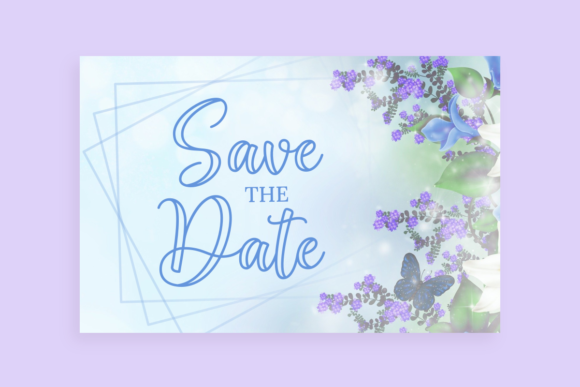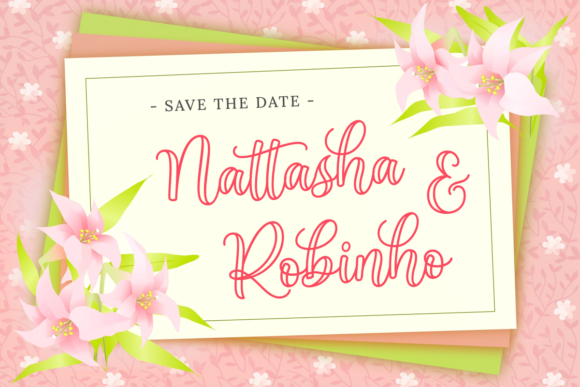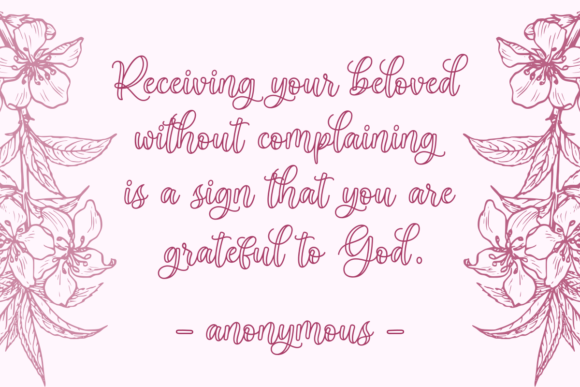
Introduction to Mellayu Font
As a designer, have you ever found yourself staring at a blank page, searching for the perfect font to bring your creative project to life? The moment when everything clicks, and your design begins to take shape, is truly magical. For many, this moment comes with the discovery of a new, high-quality design resource that sets their project apart.
One such treasure is the Mellayu Font, a stunning handwritten font that effortlessly blends classic calligraphic influences with a modern, contemporary feel. With its elegant curves and precise lettering, the Mellayu Font is a true gem for designers seeking to elevate their work. Whether you’re working on a logo, brochure, or website, this versatile font is sure to bring a touch of sophistication and creativity to your design.
Key Features of Mellayu Font
- High-quality design resource ideal for creative projects requiring a unique touch.
- Includes a comprehensive set of characters, including uppercase and lowercase letters, numbers, and punctuation marks.
- Designed with a modern aesthetic, Mellayu Font is perfect for branding, typography-based art, and digital designs.
Honest Review: Mellayu Font
I recently had the chance to work with the Mellayu Font, a free design resource that I was eager to test in a creative project. The font itself is quite unique, with a distinctive style that caught my attention.
Here are some things that work well with the Mellayu Font:
- ✨ The font is highly customizable, allowing you to adjust the size, color, and transparency to suit your needs.
- ✨ The transparent background feature is a game-changer for designers who need to work with complex layouts.
However, I did encounter some limitations with the Mellayu Font:
- ⚠️ The font may not be suitable for all types of projects, particularly those requiring a more formal or traditional look.
- ⚠️ Some users may find the font’s style to be too quirky or unconventional for their taste.
Overall, I was impressed with the Mellayu Font’s potential for creative projects. While it may not be the best choice for every designer, it’s certainly a high-quality option worth considering. With a little creativity, the Mellayu Font can be a valuable addition to any design resource library.
How to Use Mellayu Font
Tips for Getting the Most Out of Mellayu Font
To get the most out of Mellayu Font, use it in conjunction with other design elements such as images and graphics. Experiment with different font sizes and styles to create a unique and visually appealing design. The transparent background feature of Mellayu Font makes it ideal for creating stunning graphics and logos.
Common Use Cases for Mellayu Font
Mellayu Font is perfect for a variety of creative projects, including logos, graphics, and presentations. Its high-quality design and transparent background feature make it ideal for designers who need a unique and stylish font for their projects.
What makes the Mellayu Font a high-quality design resource?
The Mellayu Font is a high-quality design resource due to its precise and detailed design, which makes it suitable for various creative projects. Its high-quality design also ensures that it will render well in different font sizes and resolutions, making it a versatile choice for designers.